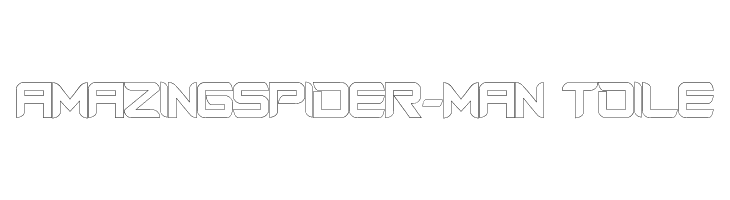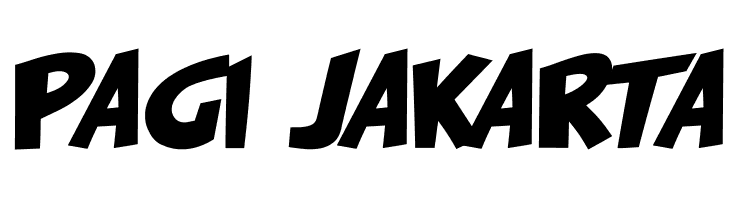
A bold, angular font with dynamic, forward-leaning characters.
A bold italic font with a modern and elegant style, perfect for impactful designs.
A playful, rounded font with bold, smooth curves and a friendly appearance.
A sleek, modern, extra-condensed italic typeface with tight spacing.
A bold, futuristic font with geometric, outlined characters.
A bold, grunge-style font with a brush-like texture and irregular edges.
A geometric, futuristic font with hexagonal shapes and angular lines.
A playful, bold font with organic, blob-like shapes and a hand-drawn feel.